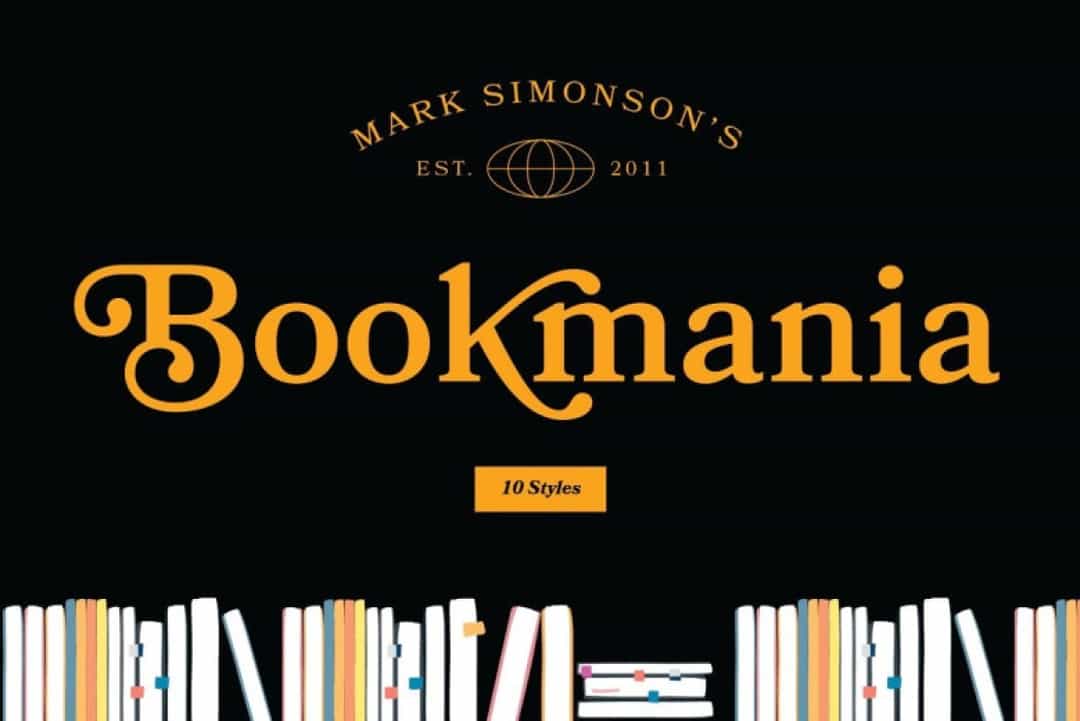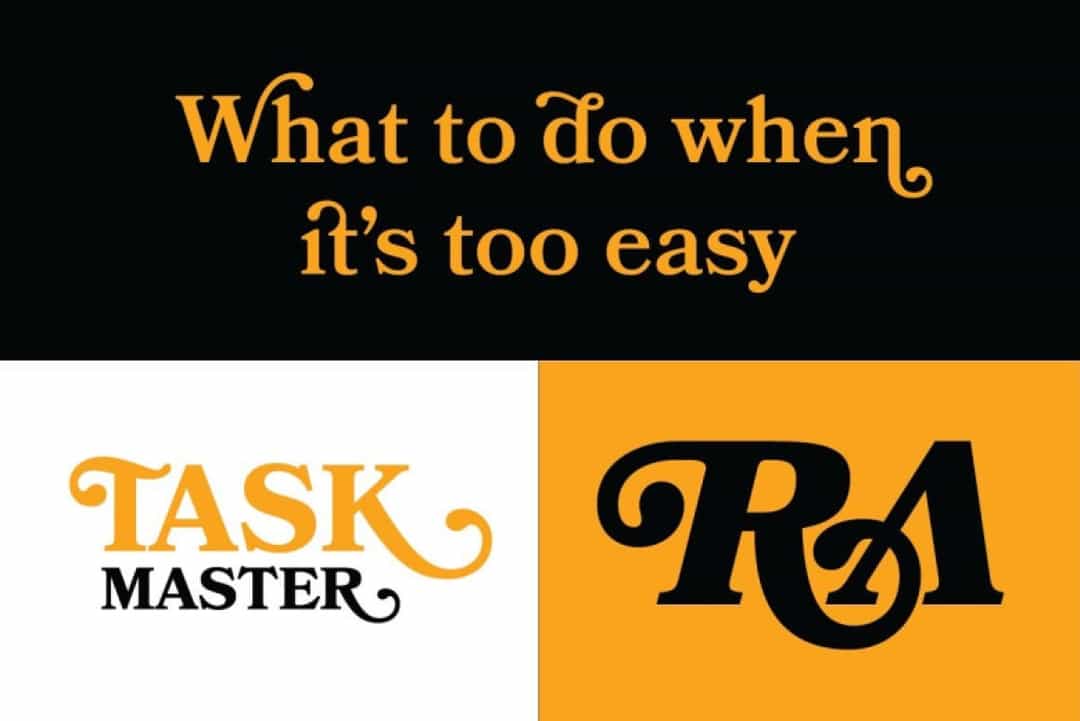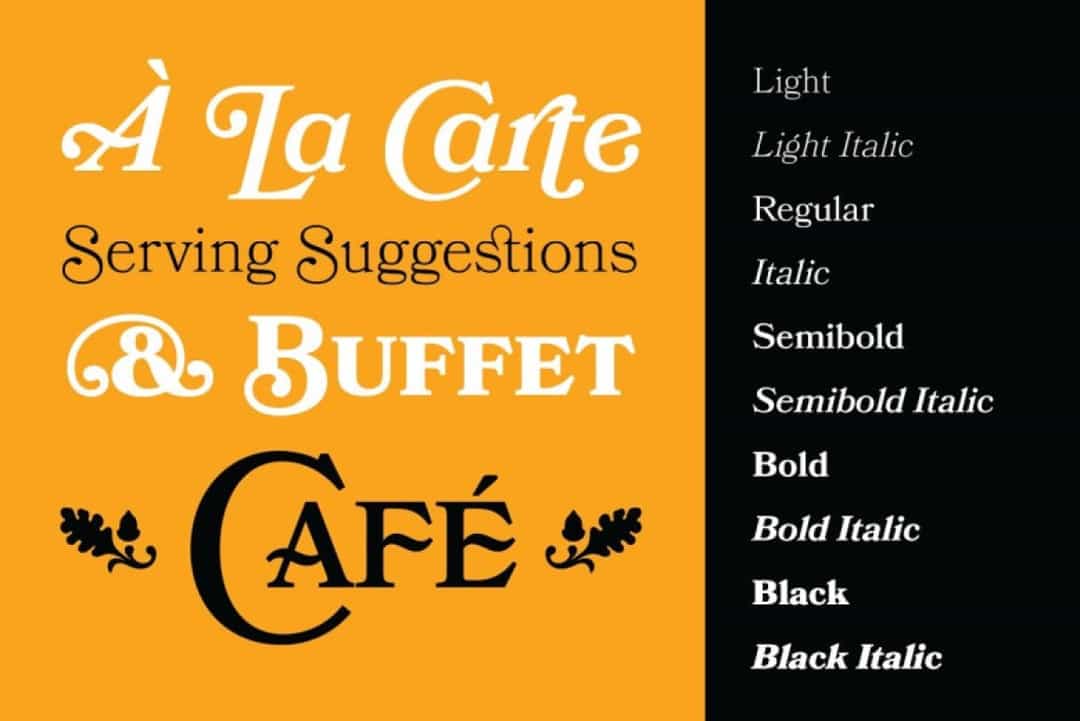
Bookmania (2011) blends the elegant style of Bookman Oldstyle (1901) with the playful enthusiasm of Bookmans from the 1960s. Boasting over 680 swash characters – more than any other Bookman book -, its possibilities are virtually limitless.